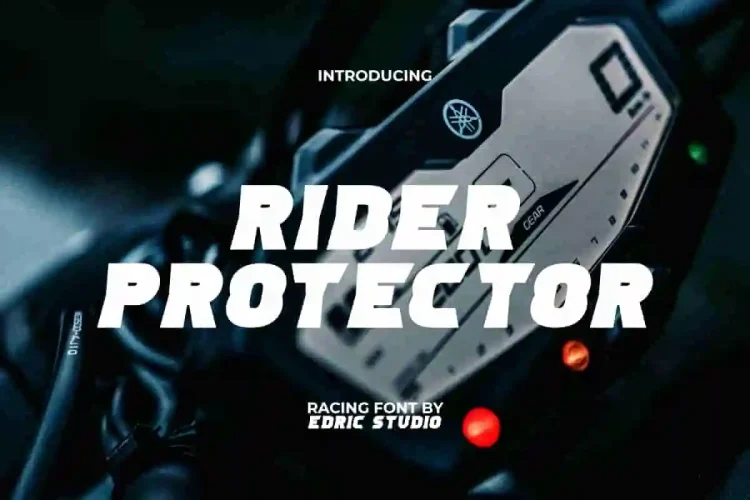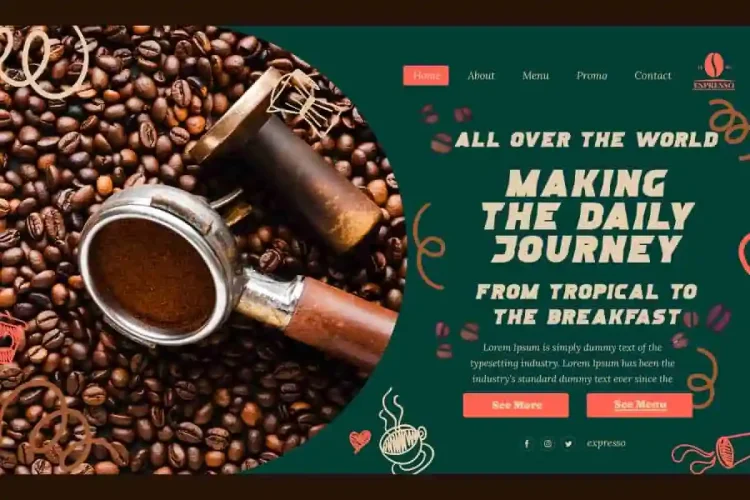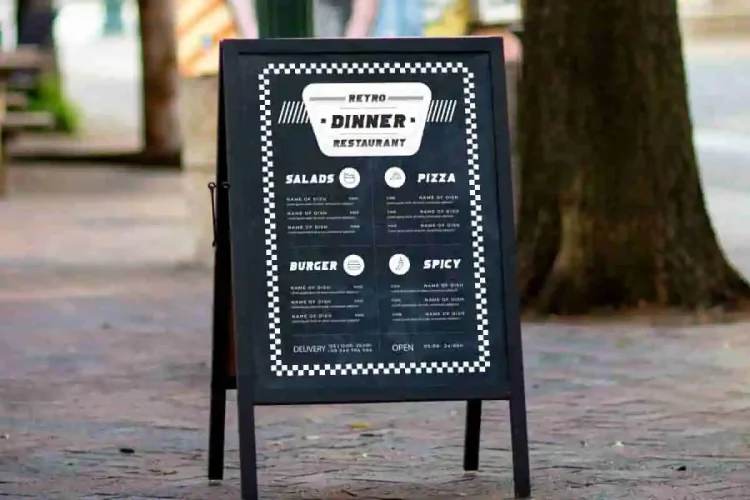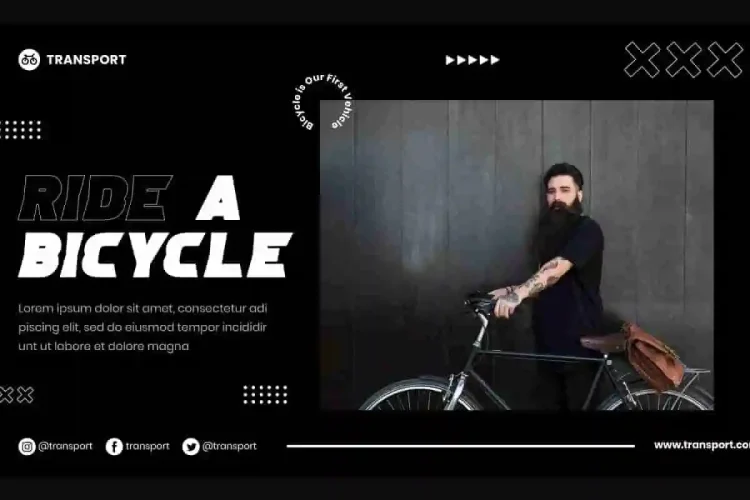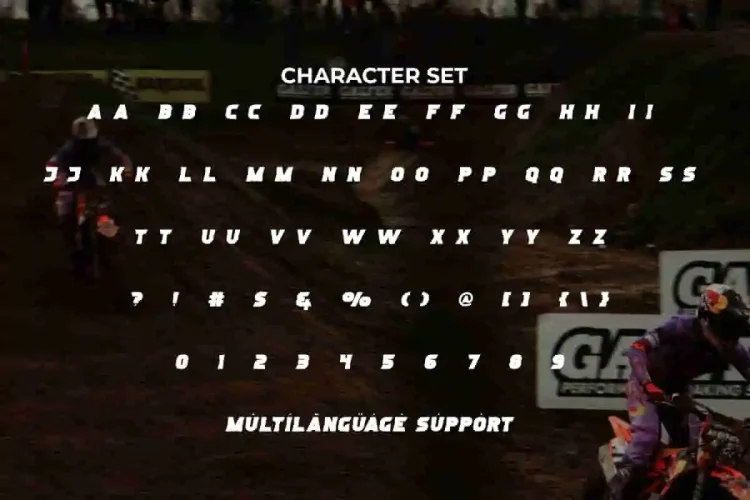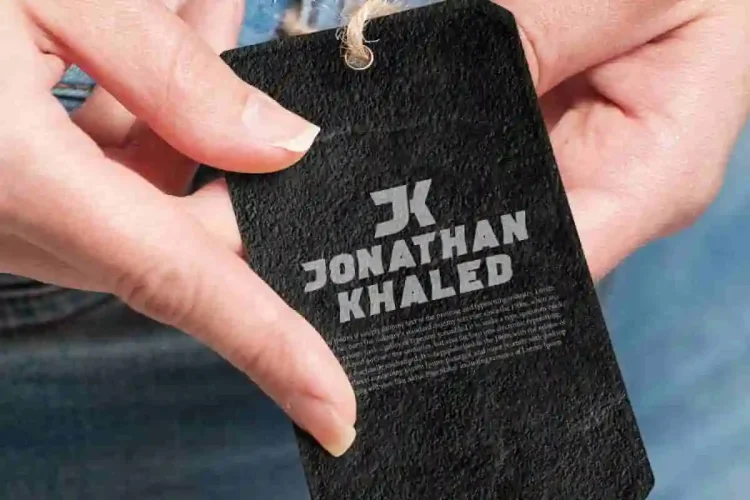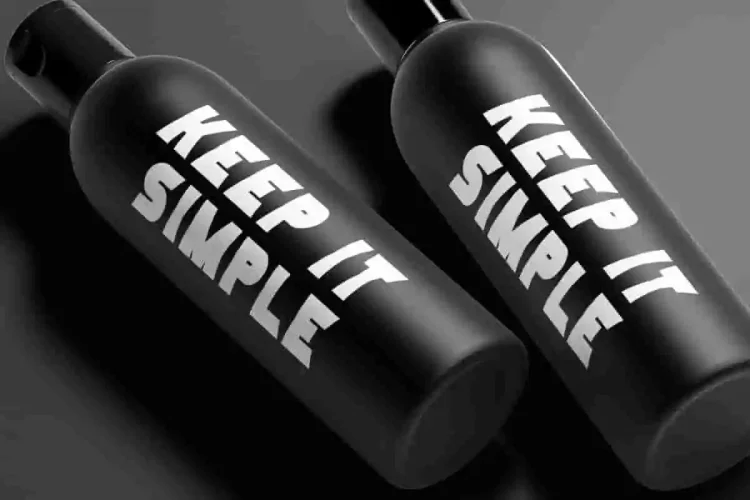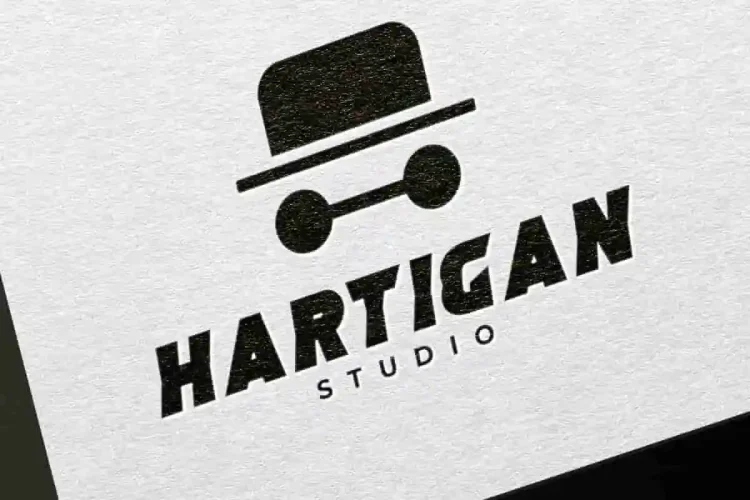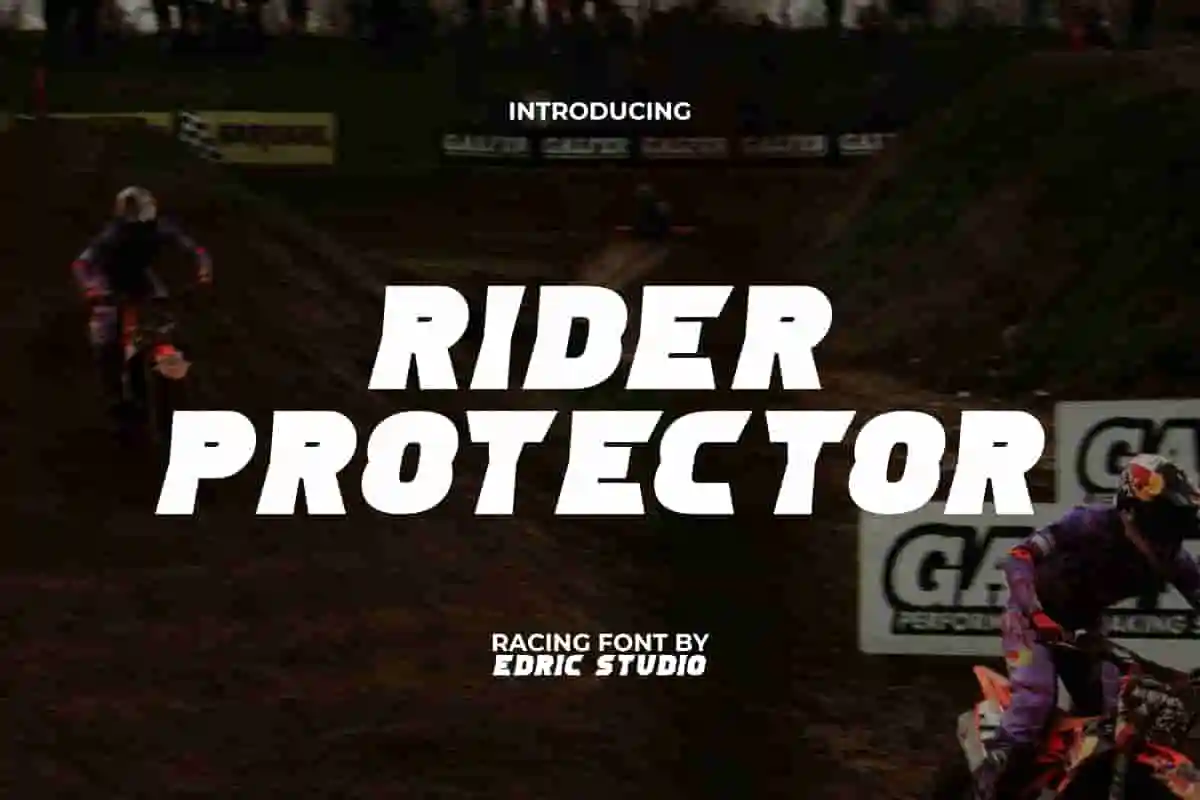
Rider Protector Font is a bold and strong racing display font with an unusual curved design in the middle of each letter. It has a uniqueness that is the characteristic of its own font with a dashing appearance. This font will be suitable for use in banners, billboard, blogs, brand logo, brochure, embossed design, flyer, headers, label, menu, mockup, poster, printed materials, template, title, website, and others.
Rider Protector Font includes a complete set of ALL CAPS for both Uppercase and Lowercase letters, Numbers, Punctuation, and Symbols. This trendy font made with a cool shape will be the center of attention and will be very interesting in any creative design you make. Perfect for apparel, authors, cafes, coffee shop, film, graphic designers, movie, printing, restaurant, web designer, and others.